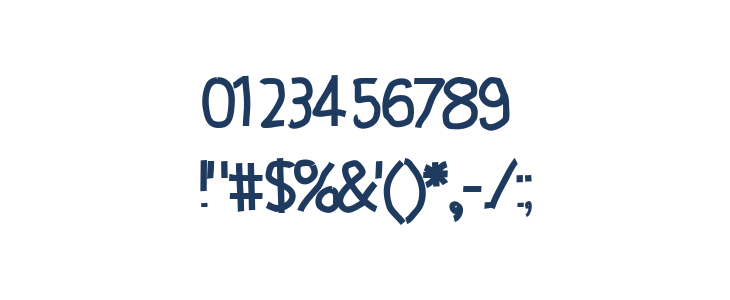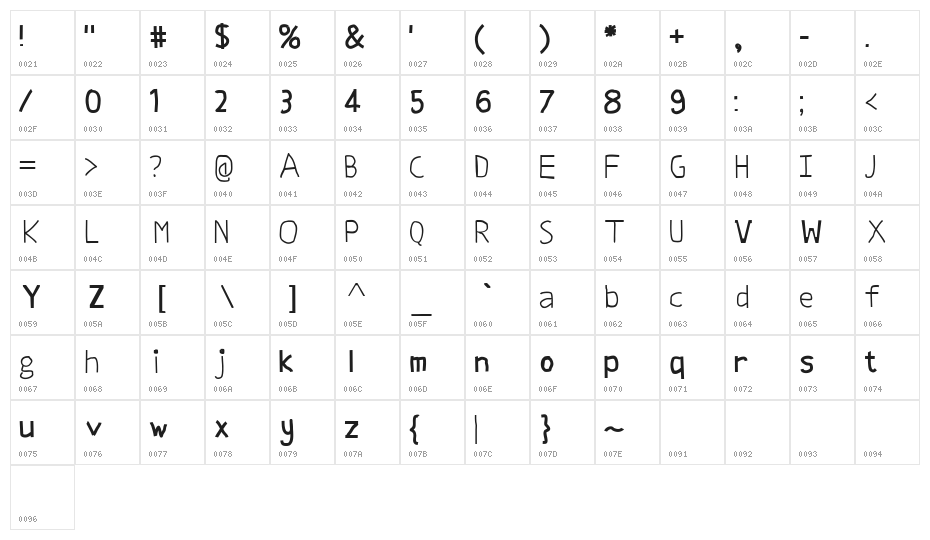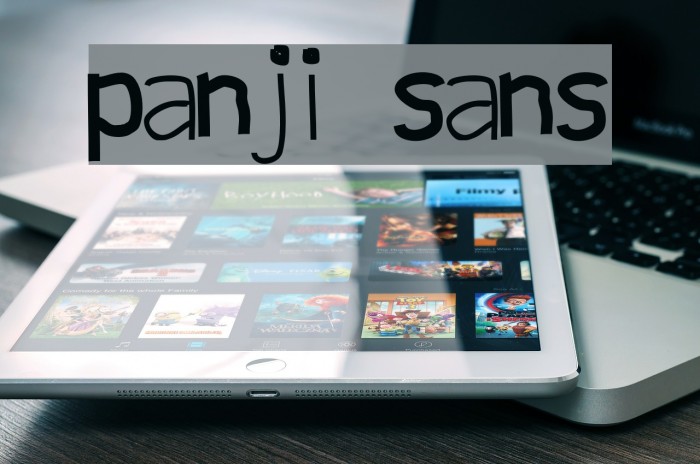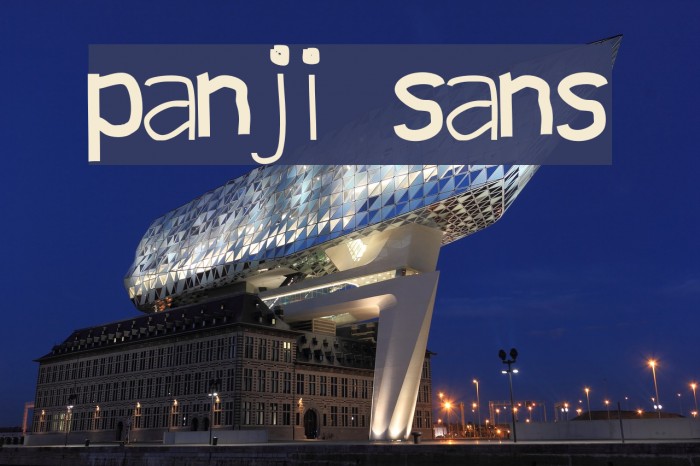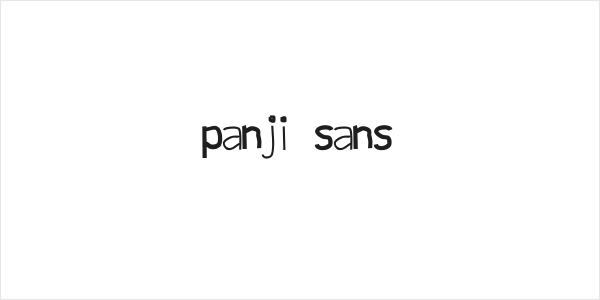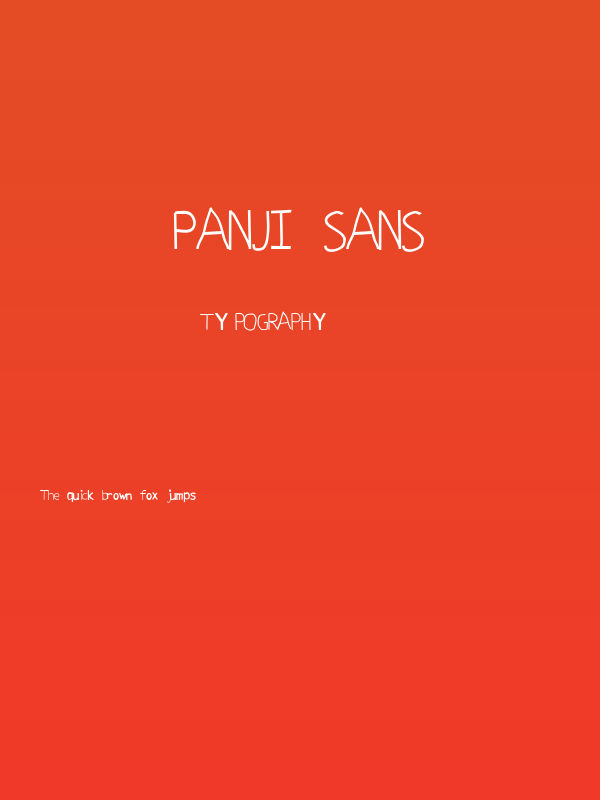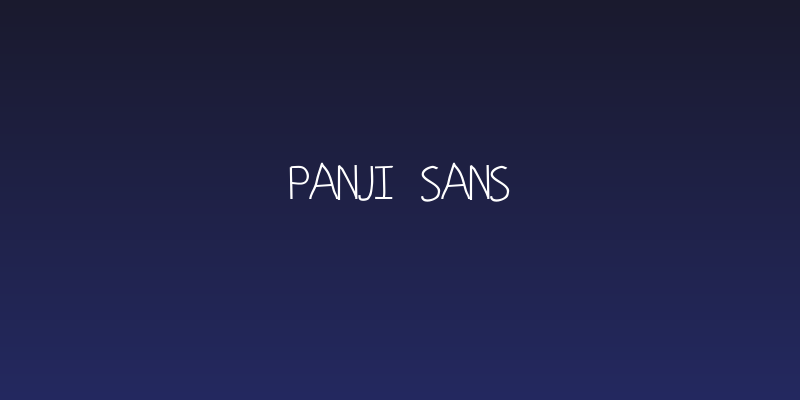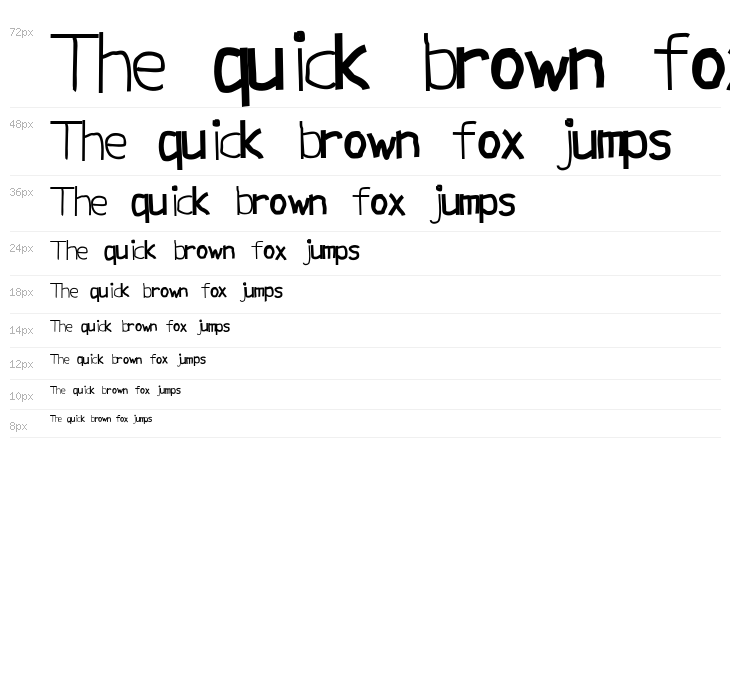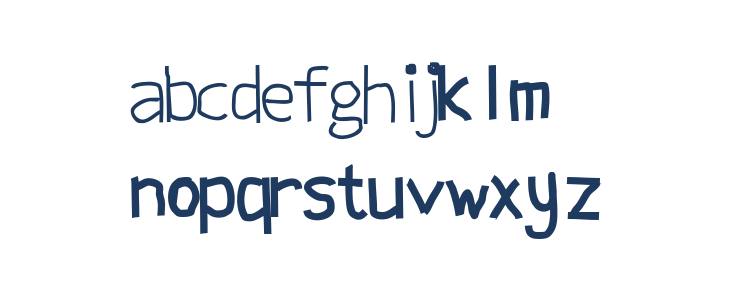
panji sans Font
panji sans Description
This font features a playful and quirky design with a hand-drawn aesthetic. The uppercase letters are tall and narrow, while the lowercase letters have a more rounded and casual appearance. The numbers and special characters maintain the same whimsical style, adding to the overall charm. The strokes are uneven, giving a dynamic and lively feel. This font is perfect for projects that require a fun and informal touch, such as children's books, creative posters, or playful branding. Its unique character makes it stand out, while still being legible and versatile.
| Overall Style | Playful, Quirky, Informal |
| Use Case | Headlines, Creative projects, Informal text |
| Proposed Projects | Children's books, creative posters, playful branding, informal invitations. |